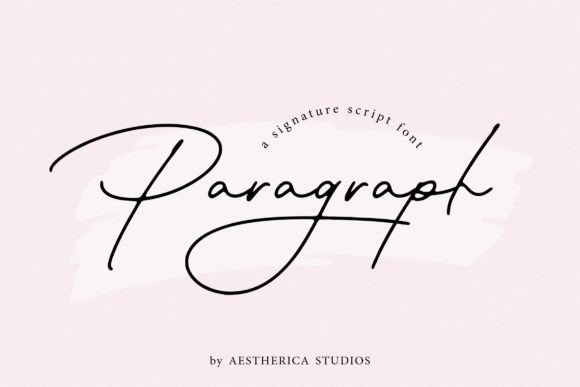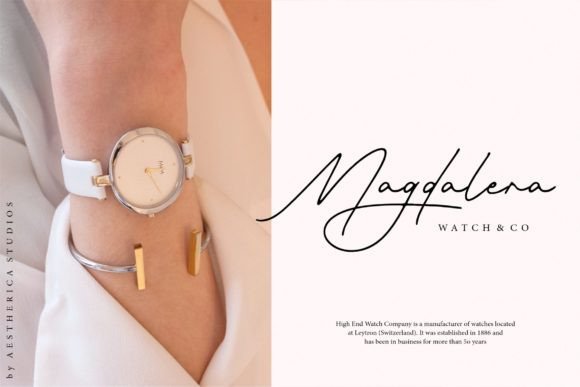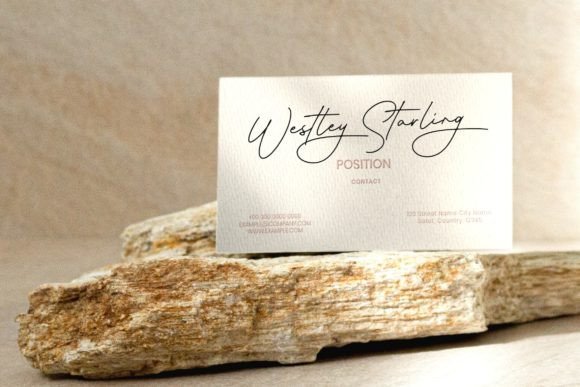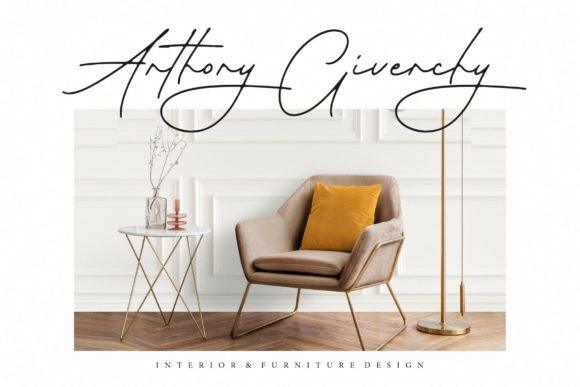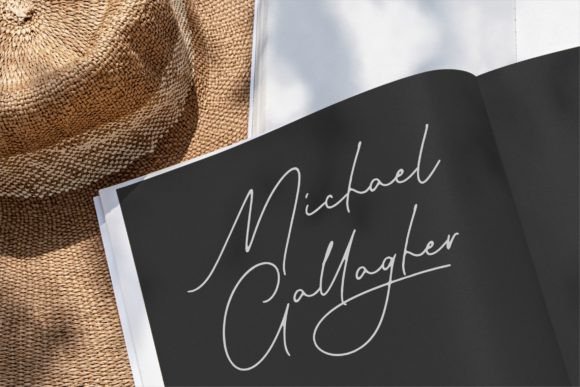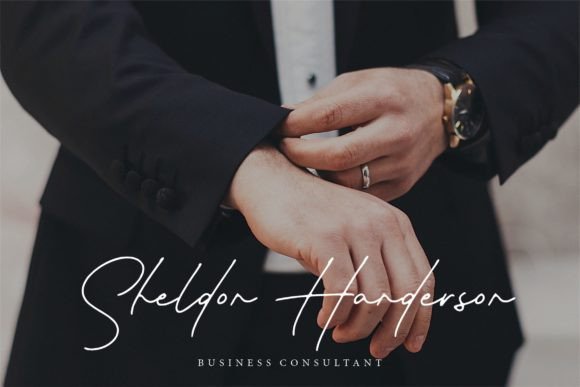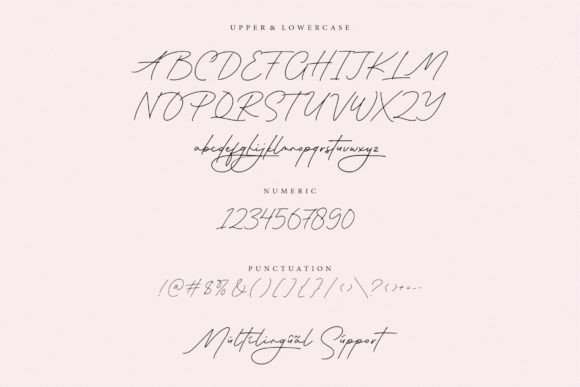
Paragraph
Paragraph Font: Versatile Typeface for Branding & Packaging
Meet Paragraph – your new design powerhouse. This exceptionally adaptable font bridges the gap between editorial sophistication and commercial appeal, delivering crisp clarity at any size while maintaining distinctive character that makes every word stand out.
Why Designers Choose Paragraph
• Multi-Scale Mastery: Perfect from 8pt to 120pt
• Weight Spectrum: 6 carefully calibrated weights
• Global Ready: Supports 80+ languages
• Contextual Smartness: Automatic alternates for repetition
Professional Applications
Commercial Excellence
Ideal for:
• Premium product packaging
• Brand identity systems
• Annual report typography
Editorial Impact
Transforms:
• Magazine headline hierarchies
• Coffee table book text
• Newspaper feature articles
• Features: Small Caps, Lining Figures
✒️ Typesetting Tip: Use Medium weight at 14pt with 1.5 line-height for perfect paragraph readability.
Perfect Pairings
1. Contemporary Contrast: with Poppins
2. Classic Combination: with Garamond Premier
3. Minimalist Mix: with Neue Haas Unica